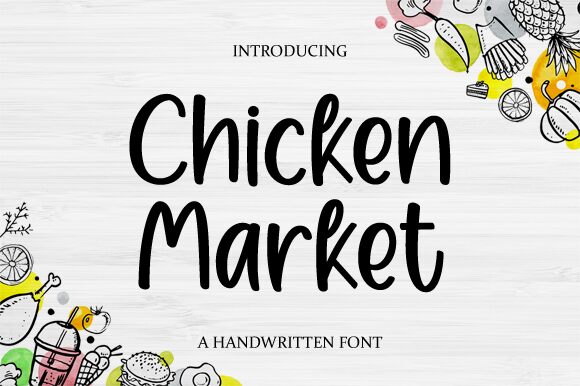
Chicken Market, a creation by Graphix Line Studio, encapsulates the charm of a semi-light handwritten font with an effortless flair. Exuding an organic aesthetic that brings to mind the bustling energy and rustic charm of a local marketplace, this typeface boasts flowing lines and casual elegance. Its semi-light weight ensures readability while retaining a light touch, making it an excellent choice for designs seeking to convey warmth and personality.
This versatile font finds its place in a variety of creative projects, from branding initiatives that require a personal touch to packaging designs that aim to evoke artisanal craftsmanship. Whether used for invitations or storefront signage, Chicken Market's inviting style bridges the gap between informal spontaneity and professional polish.
Incorporating Chicken Market into your design arsenal means infusing your work with an accessible yet distinctive character – perfect for standing out in an ever-competitive visual landscape.